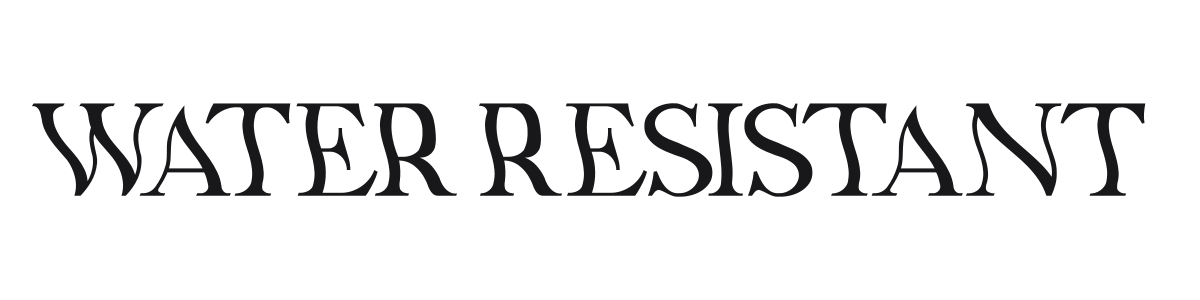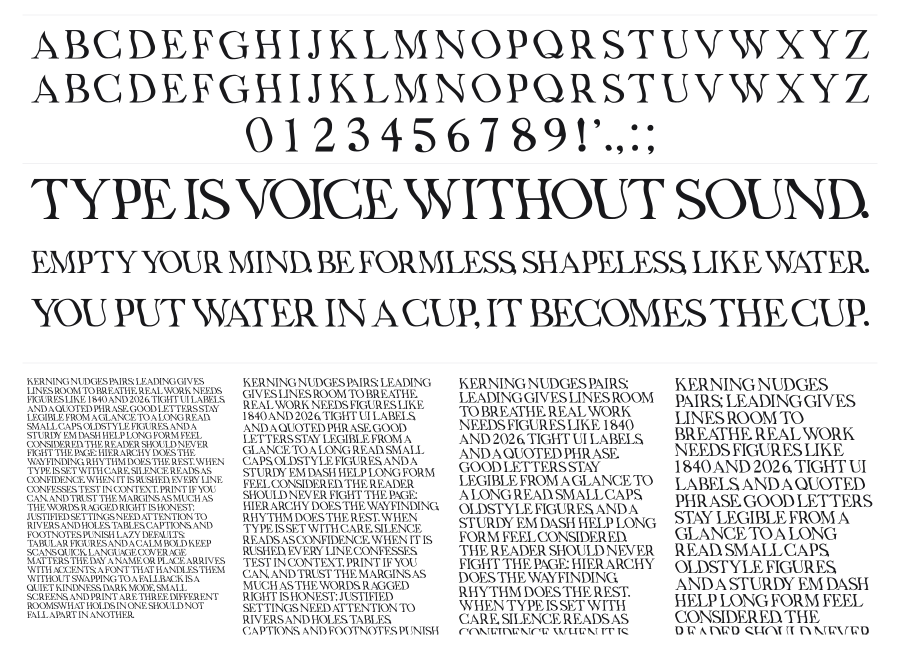
Water Resistant
Water Resistant is a high-contrast modern serif drawing from the Didone tradition, with wide proportions and striking tension between thick stems and gossamer-thin hairlines. The generous spacing and upright posture give it a composed, editorial authority. It sits comfortably in fashion branding, magazine headers, and luxury packaging.